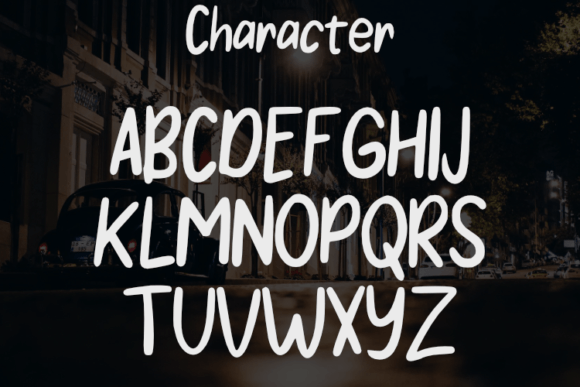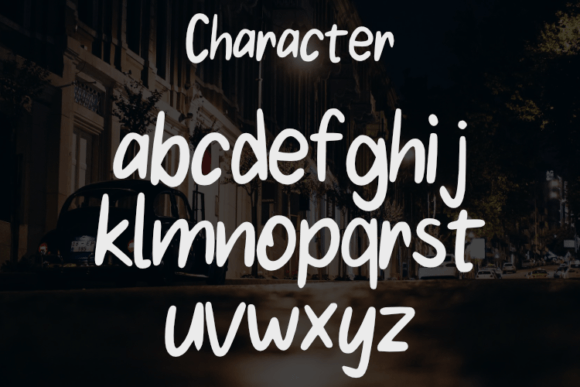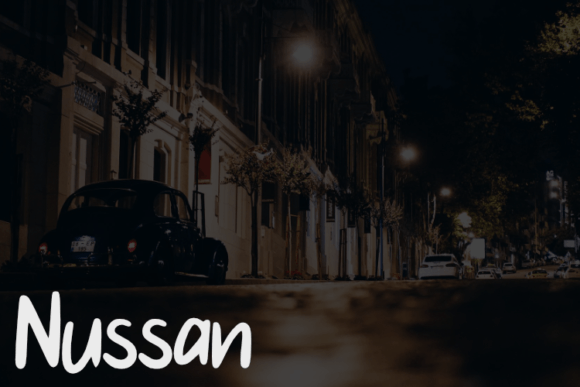
Nussan Font
About Nussan Font
Nussan is a script typeface with a simple yet modern style, making it an ideal choice for various design applications. The font’s clean lines and contemporary look lend themselves well to creating an elegant and luxurious aesthetic. Nussan is versatile and suitable for a range of design projects, including logos, book or movie design titles, fashion brands, magazines, clothing labels, fonts, quotes, and more.
The simplicity of Nussan’s design allows it to be easily incorporated into different contexts while maintaining a sense of sophistication. Its modern appearance aligns with current design trends, making it a relevant and stylish option for those looking to convey a sense of refinement in their visual projects.
Whether you’re working on branding, editorial design, or any creative endeavor that requires a touch of elegance, Nussan can be a valuable asset. Experiment with its application to discover how it enhances the overall look and feel of your designs, adding a touch of modern luxury.